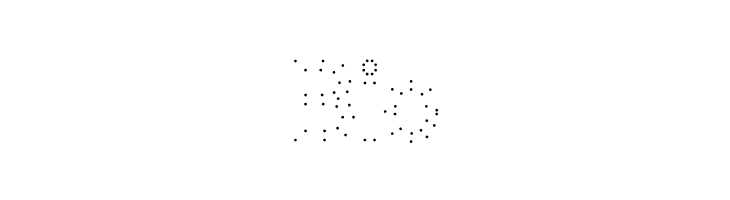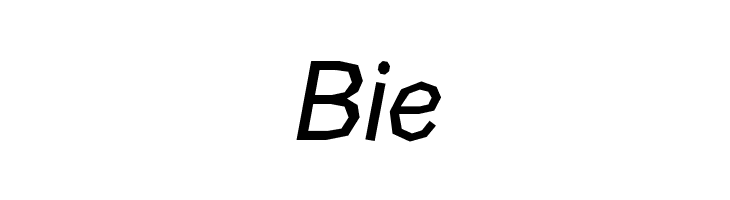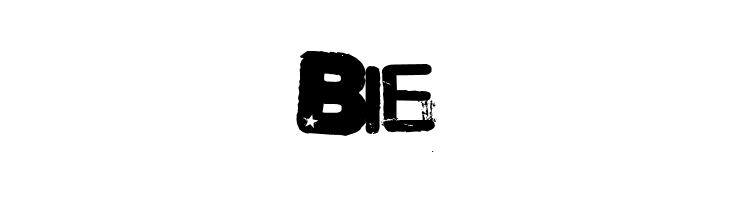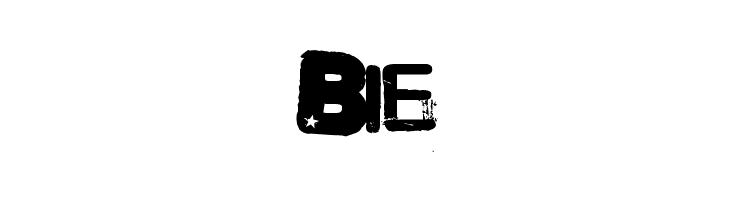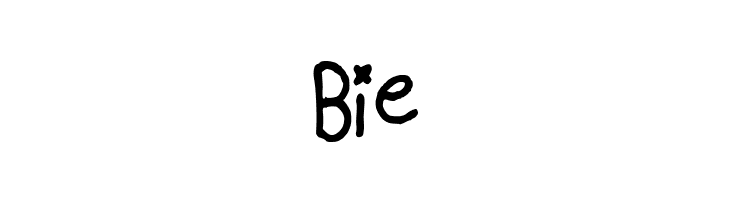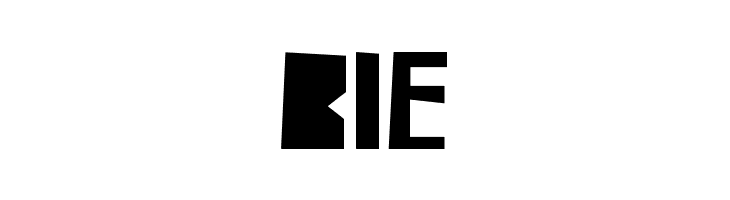
A bold, grunge-style decorative font with star motifs and heavy texture.
A bold, distressed font with a grunge texture and star motifs, ideal for edgy designs.
A playful, grunge-style font with bold outlines and textured interiors.
A bold, grunge-style font with ink-like textures and playful outlines.
Bold, italicized font with a geometric and angular design.
A dot matrix style font with a retro digital appearance.
A modern, italic font with a geometric and clean design.
A casual, handwritten font with an authentic, personal touch.